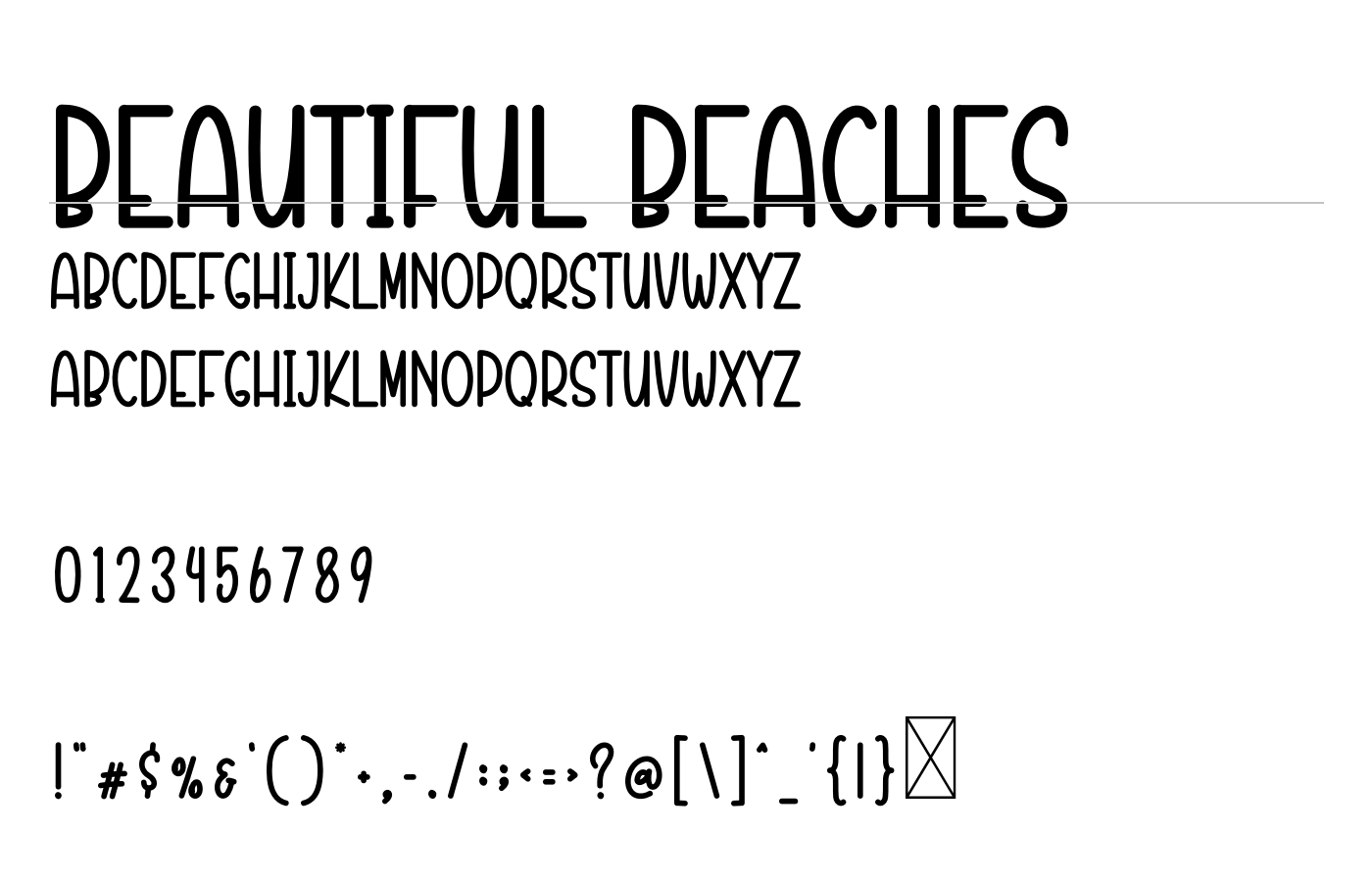
Beautiful Beaches is a playful and casual sans-serif font with a tall, narrow structure and rounded edges that give it a friendly, approachable feel. Its lightweight strokes and quirky letterforms make it ideal for designs that want to convey fun and creativity, such as summer-themed branding, posters, or informal invitations. This font works best in headlines and display uses where its unique personality can shine.
Beautiful Beaches Font